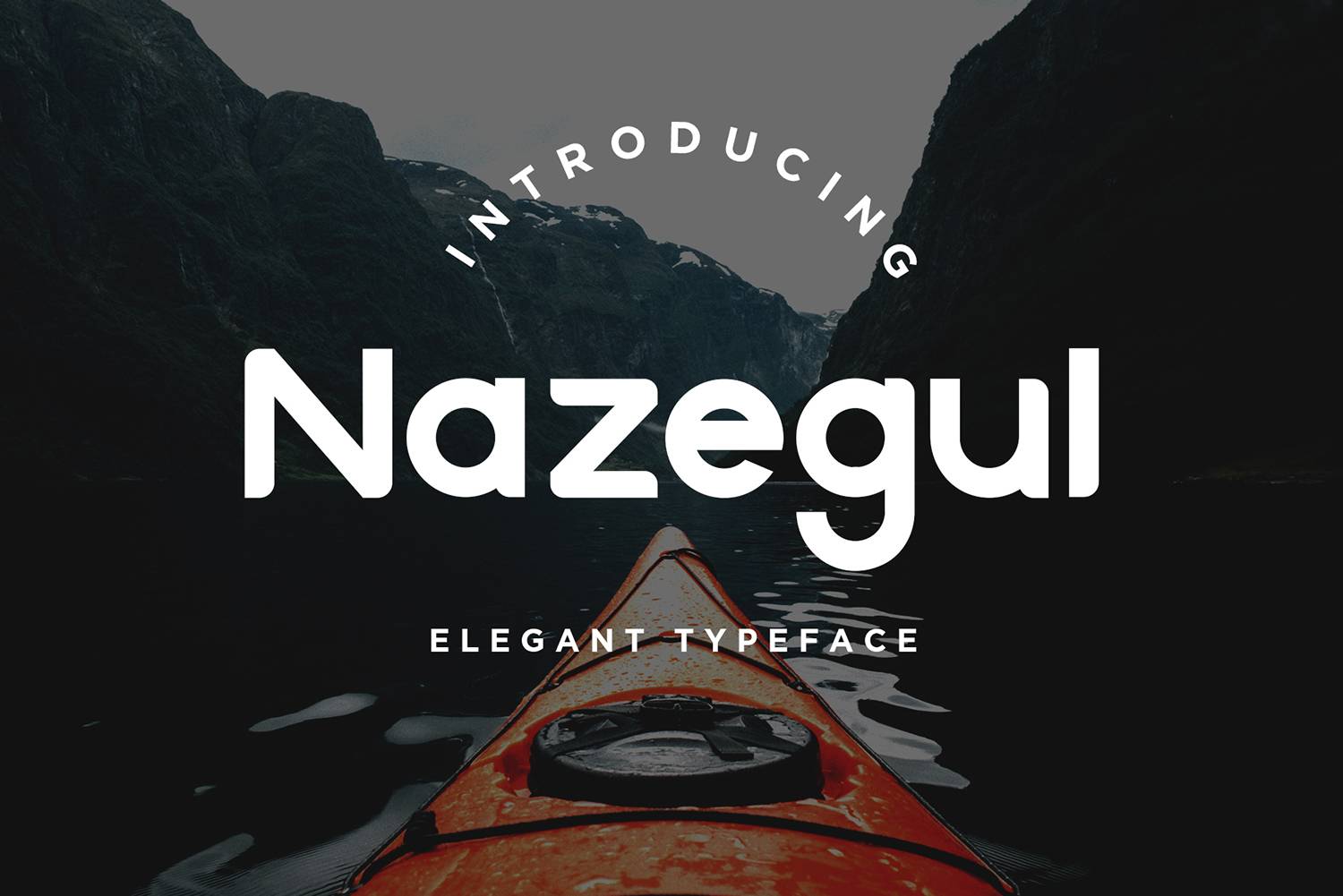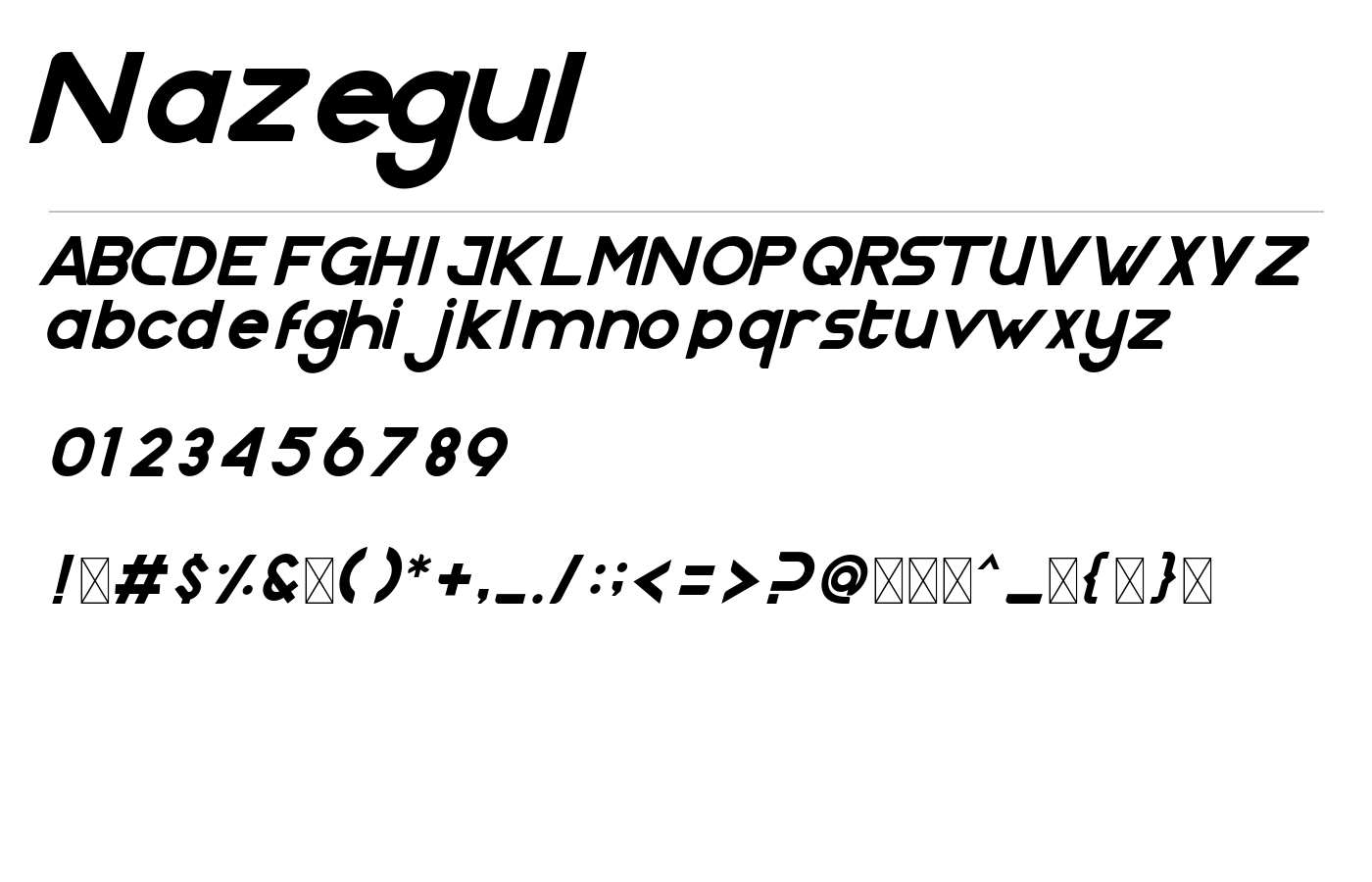
Nazegul is a sleek, modern sans-serif font with an italic slant that adds a dynamic and energetic feel. Its clean, slightly condensed letterforms with medium stroke contrast make it highly legible while conveying a contemporary, stylish vibe. This font works well for branding, headlines, and editorial use where a professional yet lively tone is desired.
Nazegul Font
About Nazegul Font
| Font family | Nazegul Font |
| Designer | Fandi Kurniawan |